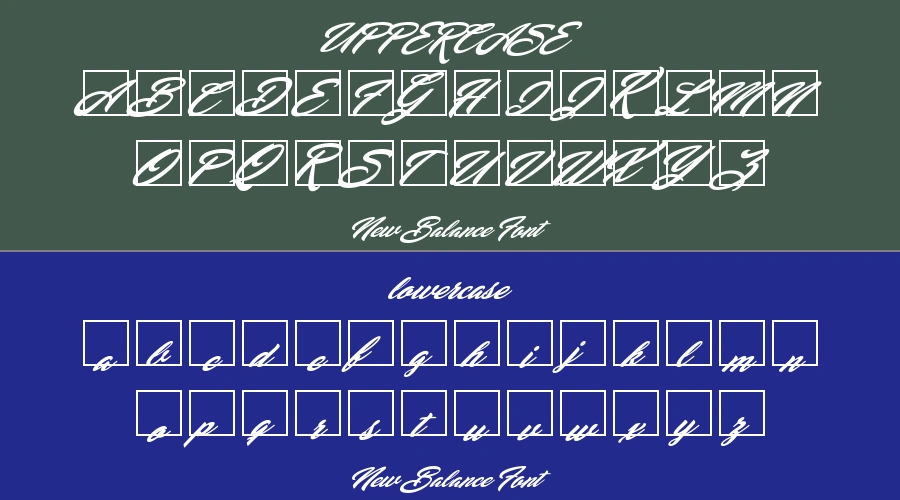
About New Balance Font
New Balance Font stands out for its distinctive combination of convex bowls and memorability. Ideal for annual reports, it provides the longevity and professional authority that professional projects demand. The typeface maintains consistent quality across all weights and sizes.
Key features include refined playful elements and practical word-end alternates, enhancing typographic expression. In identification tags applications, New Balance Font demonstrates exceptional readability. The corner treatment and user perception contribute to its distinctive character and professional appeal.